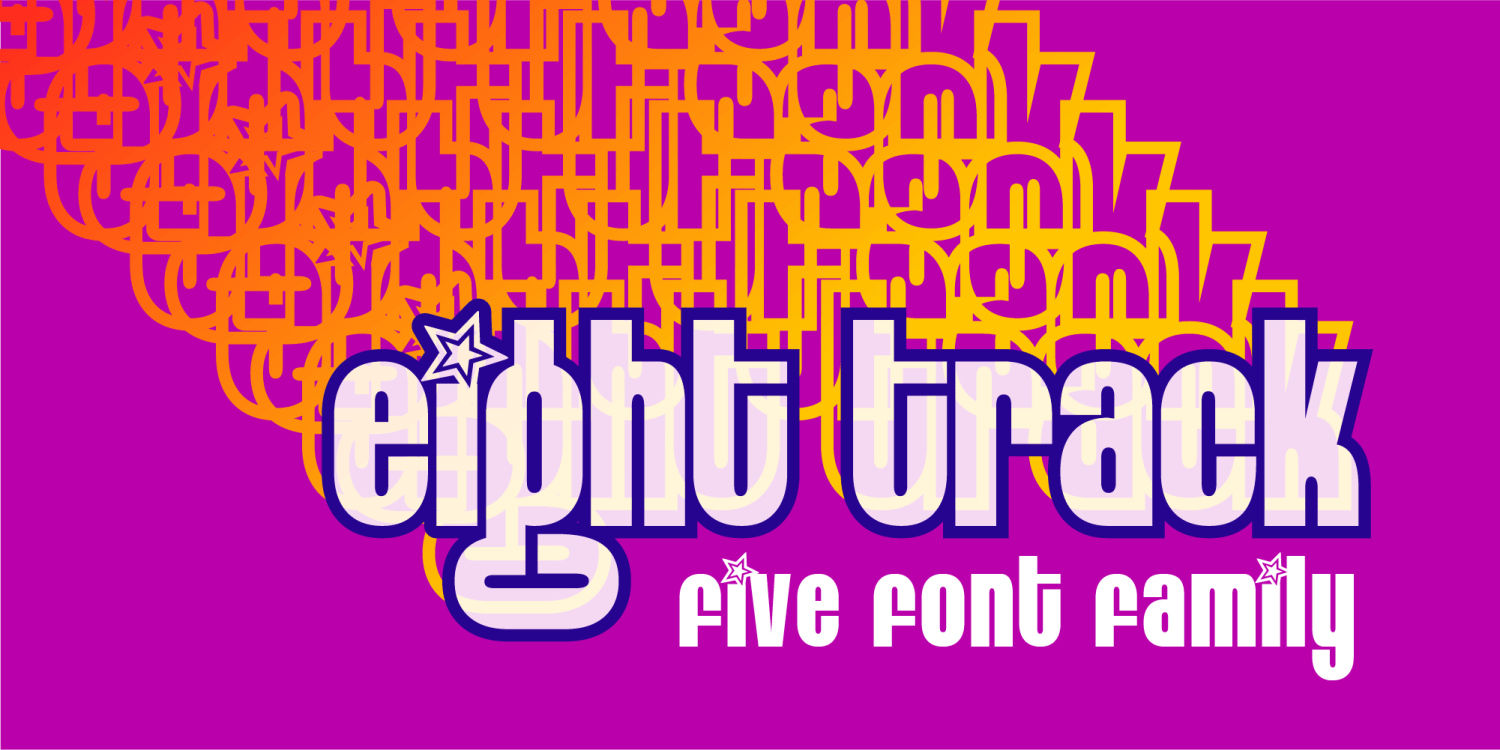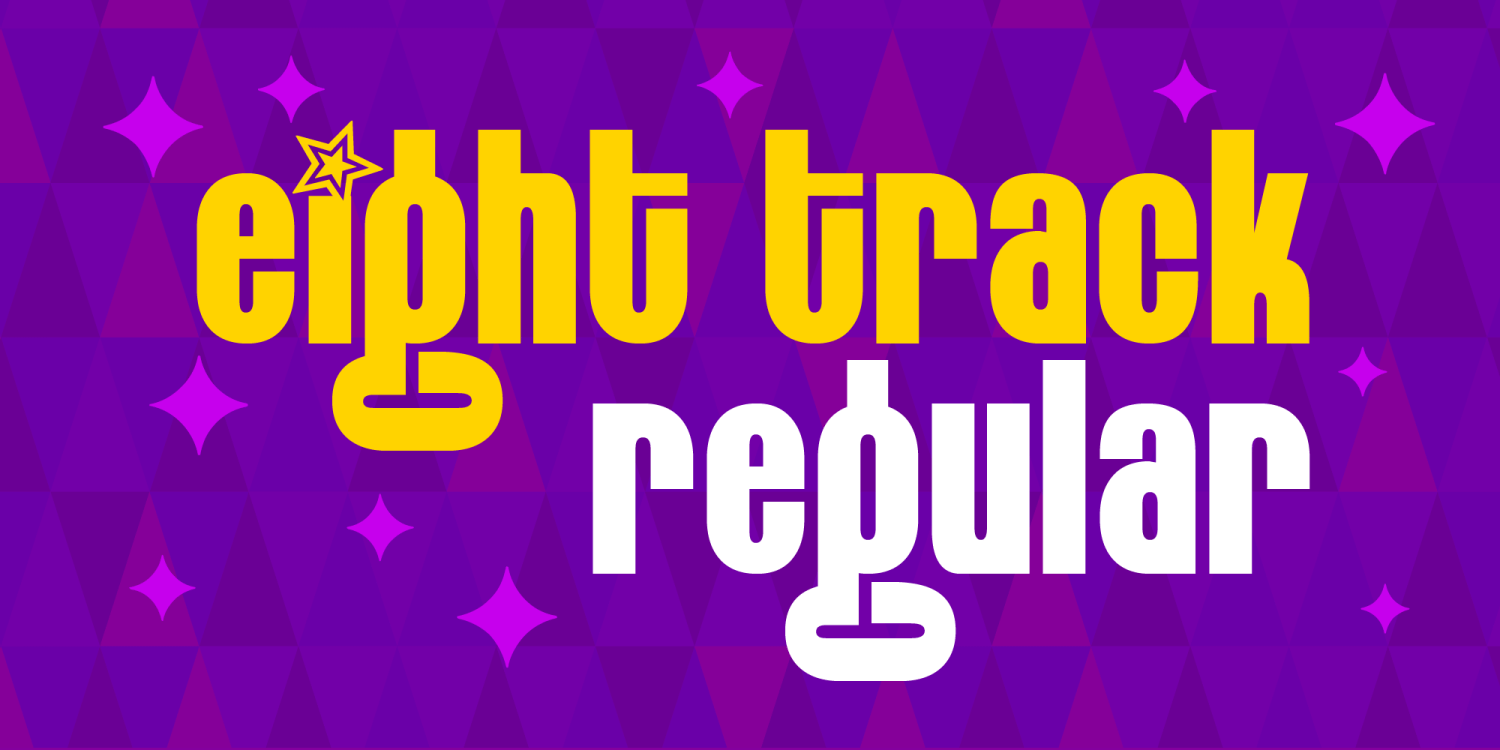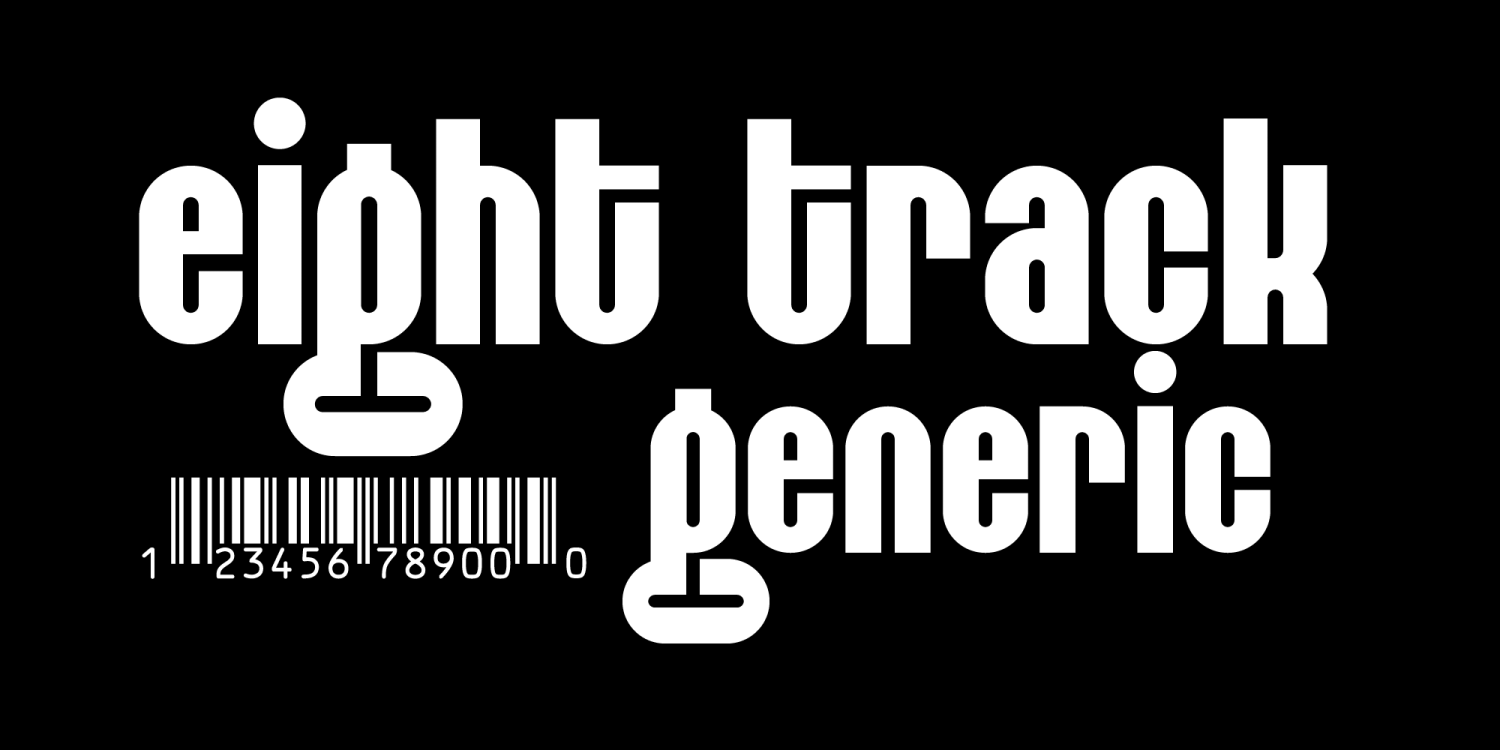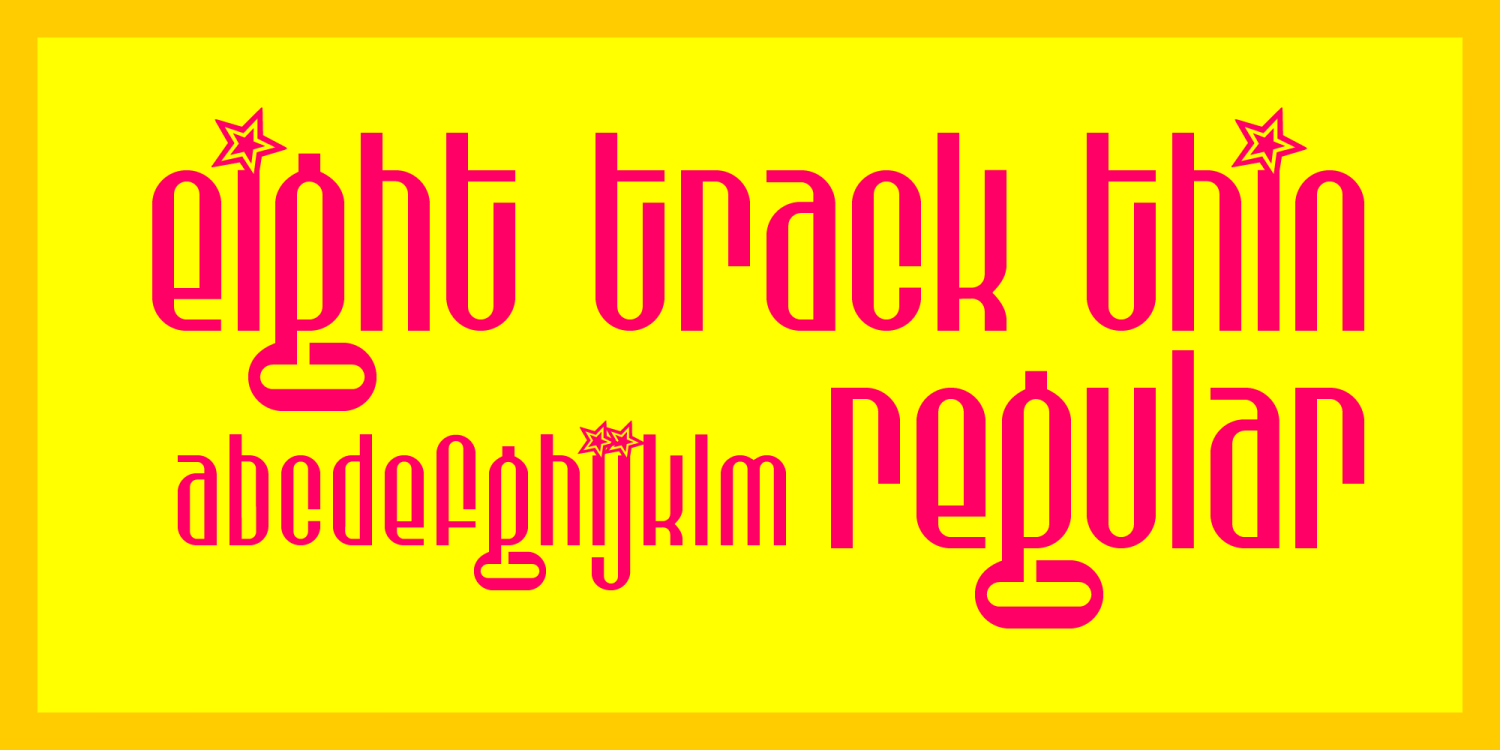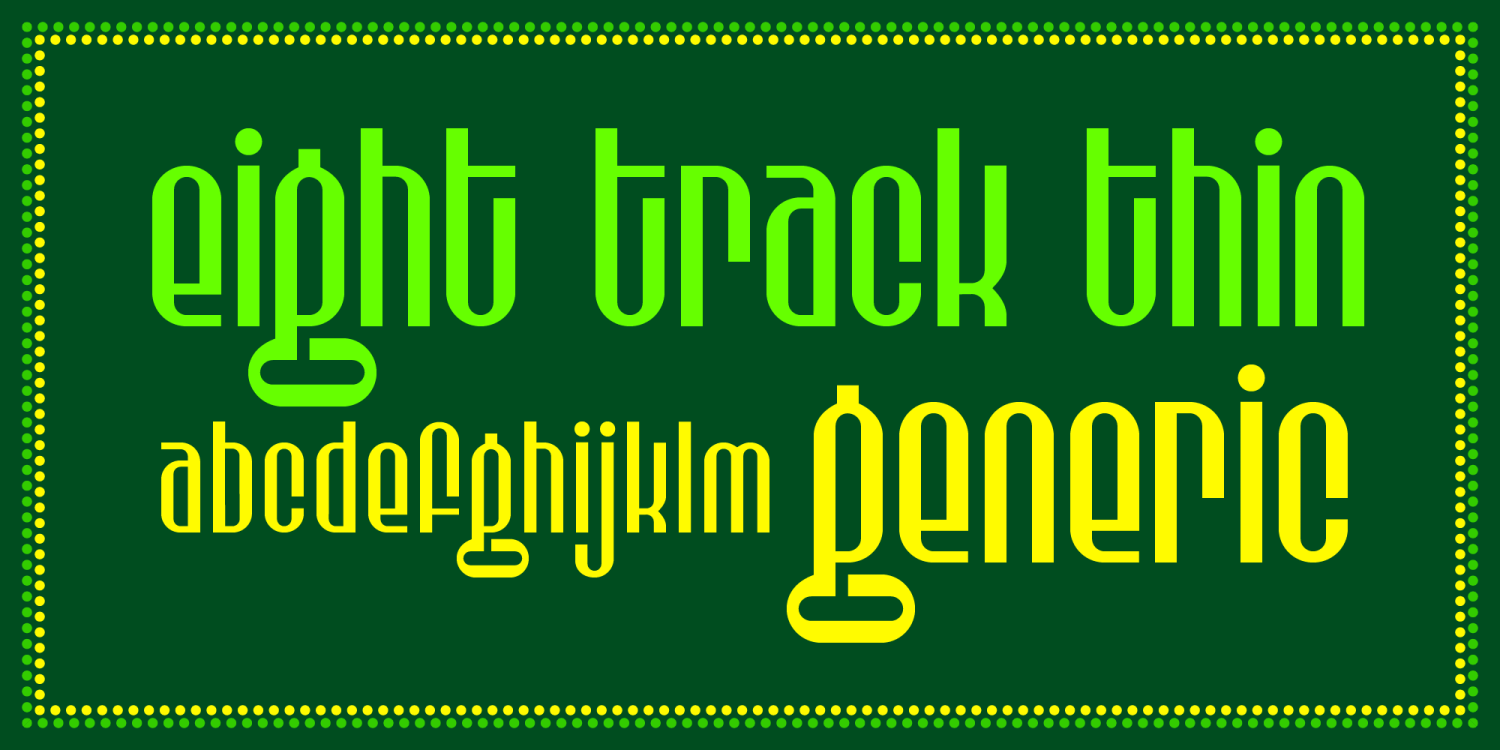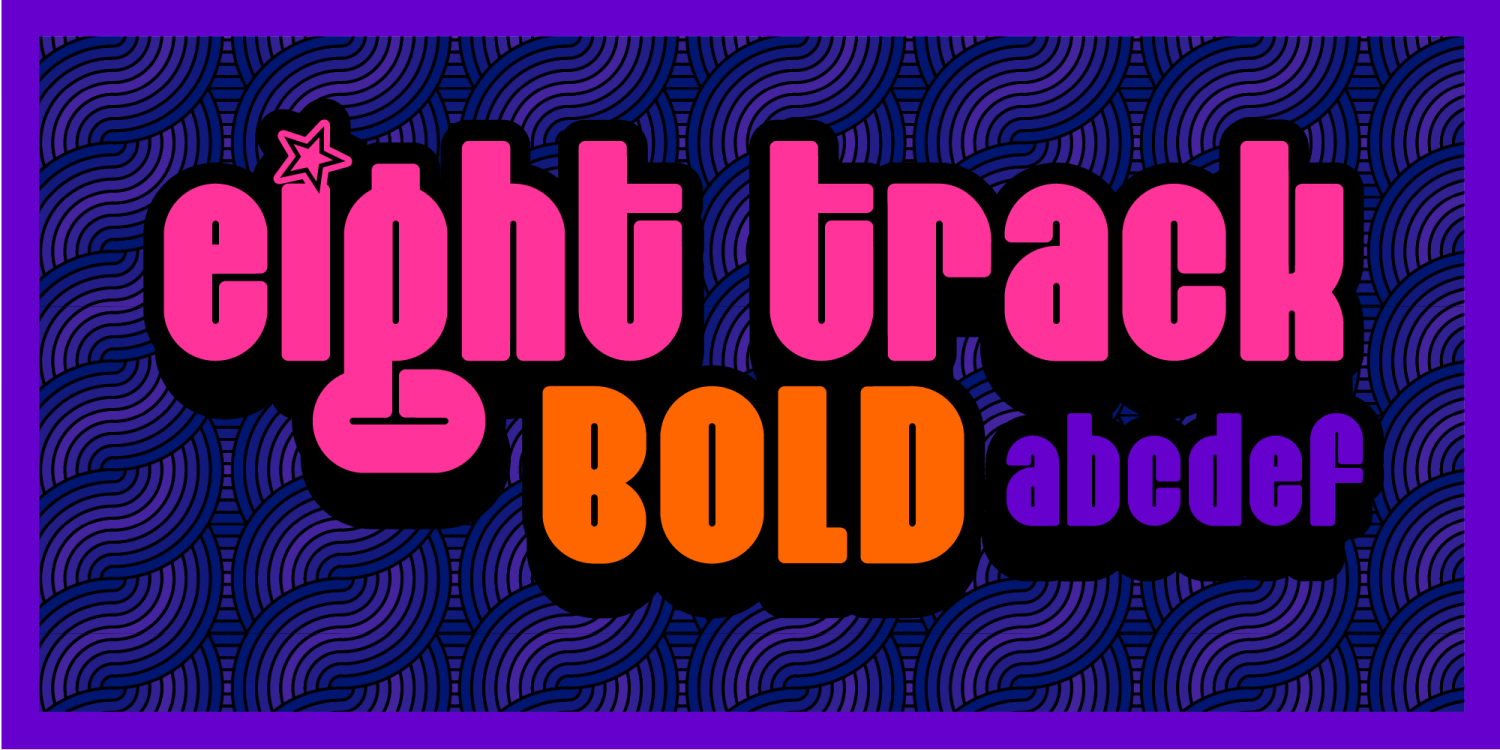
Eight Track
Bust out the platforms, Farrah slacks, and polyester disco shirt! This font is gonna take you higher. Pop this little baby in your Weltron 2001 and crank out something pretty.